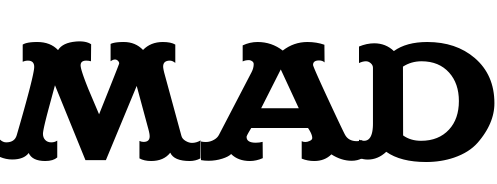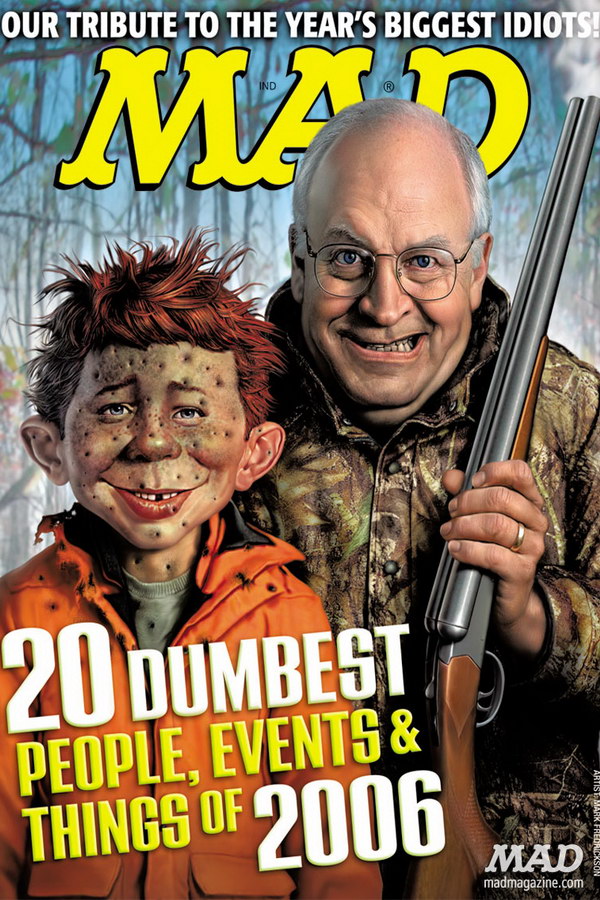
Mad Font
BookMad is a satirical publication that parodies popular culture, politics, and societal norms. It was first published in 1952 and has since become a cultural icon known for its irreverent humor and unique comic book-style illustrations.
Harold's Fonts designed Madfont to replicate the lettering used in Mad Magazine. The font family includes three styles - Regular, Thorns, and Bars - each with an extensive range of characters. You can obtain the font for free from the Fonts Used Section.